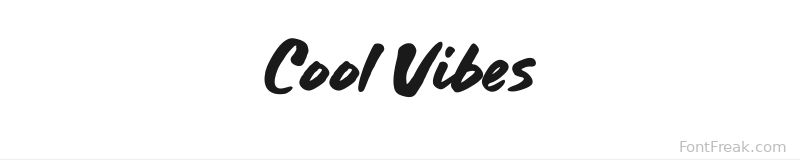
Cool Vibes
The Cool Vibes font by BLKBK Fonts is a striking display typeface that embodies a contemporary and playful aesthetic. This font features a combination of rounded forms and smooth curves that create an inviting visual appeal. The stroke weight is balanced, giving it a harmonious look that maintains legibility while offering a stylish flair. With moderate contrast and ample spacing between characters, Cool Vibes ensures that each letter stands out, making it suitable for a variety of design projects.
This font is ideal for a range of creative applications. It's particularly well-suited for wedding invitations, where its charming style can enhance the romantic feel of the event. Additionally, it works beautifully on movie posters, capturing the attention of viewers with its vibrant personality. Restaurant menus can also benefit from the Cool Vibes font, as its friendly demeanor can make the dining experience feel more relaxed and enjoyable. Content creators will find it an excellent choice for social media graphics, where eye-catching visuals are essential for engagement.
What sets the Cool Vibes font apart is its ability to blend modern design with an approachable feel, making it versatile across various contexts. Whether used in print or digital formats, this freeware font provides an effortless way to infuse your projects with character. Don’t miss the opportunity to enhance your designs; the Cool Vibes font free download is just a click away, ready to bring your creative visions to life.